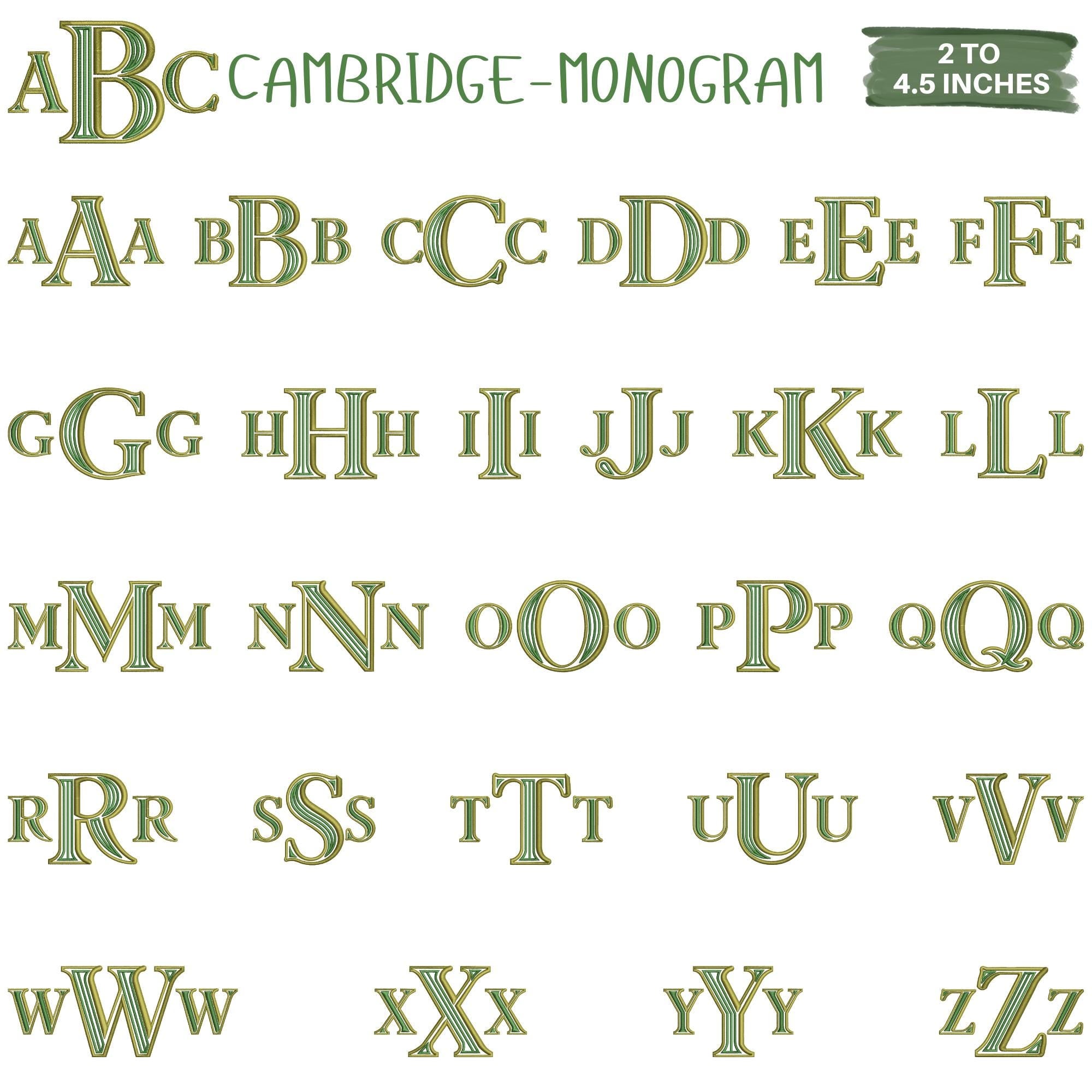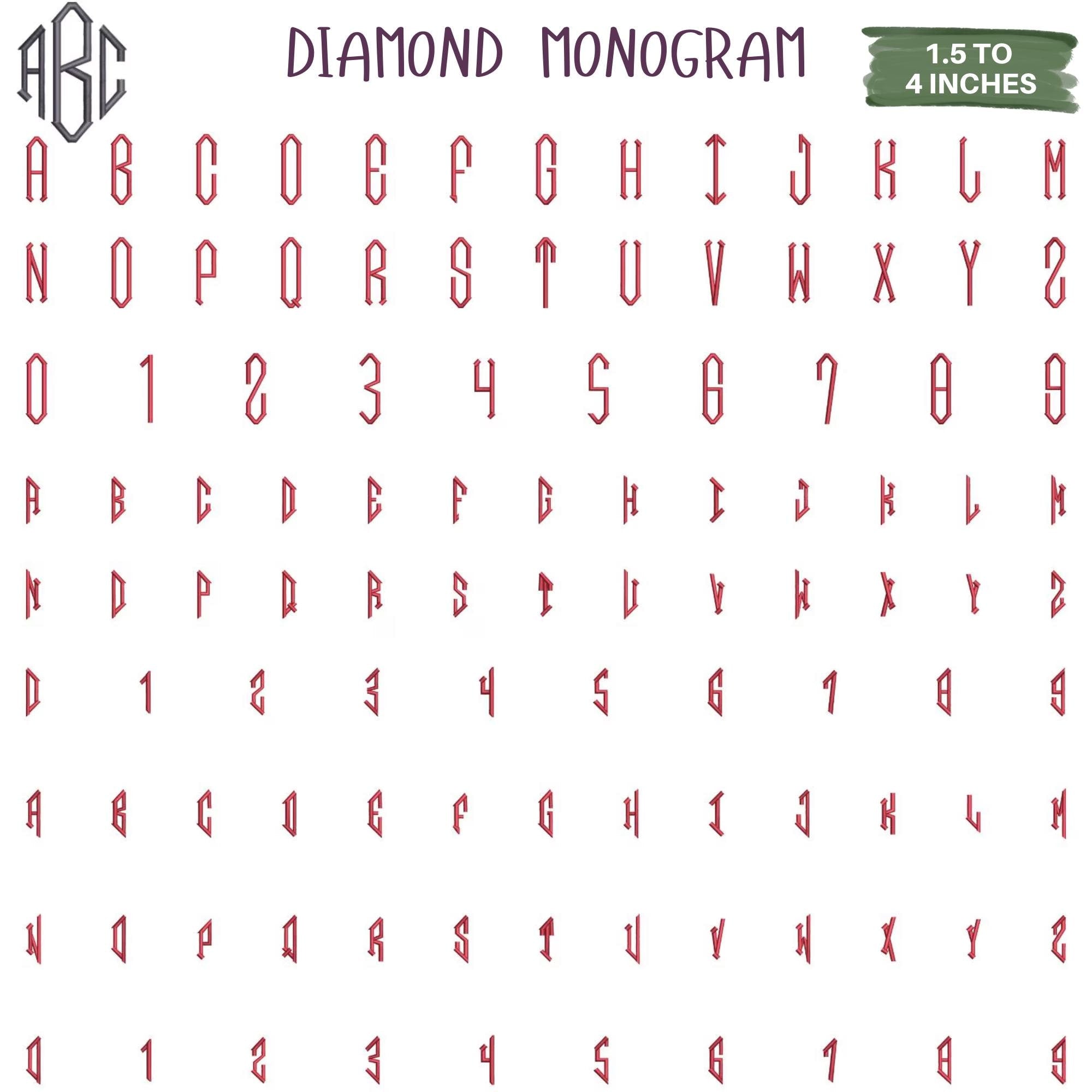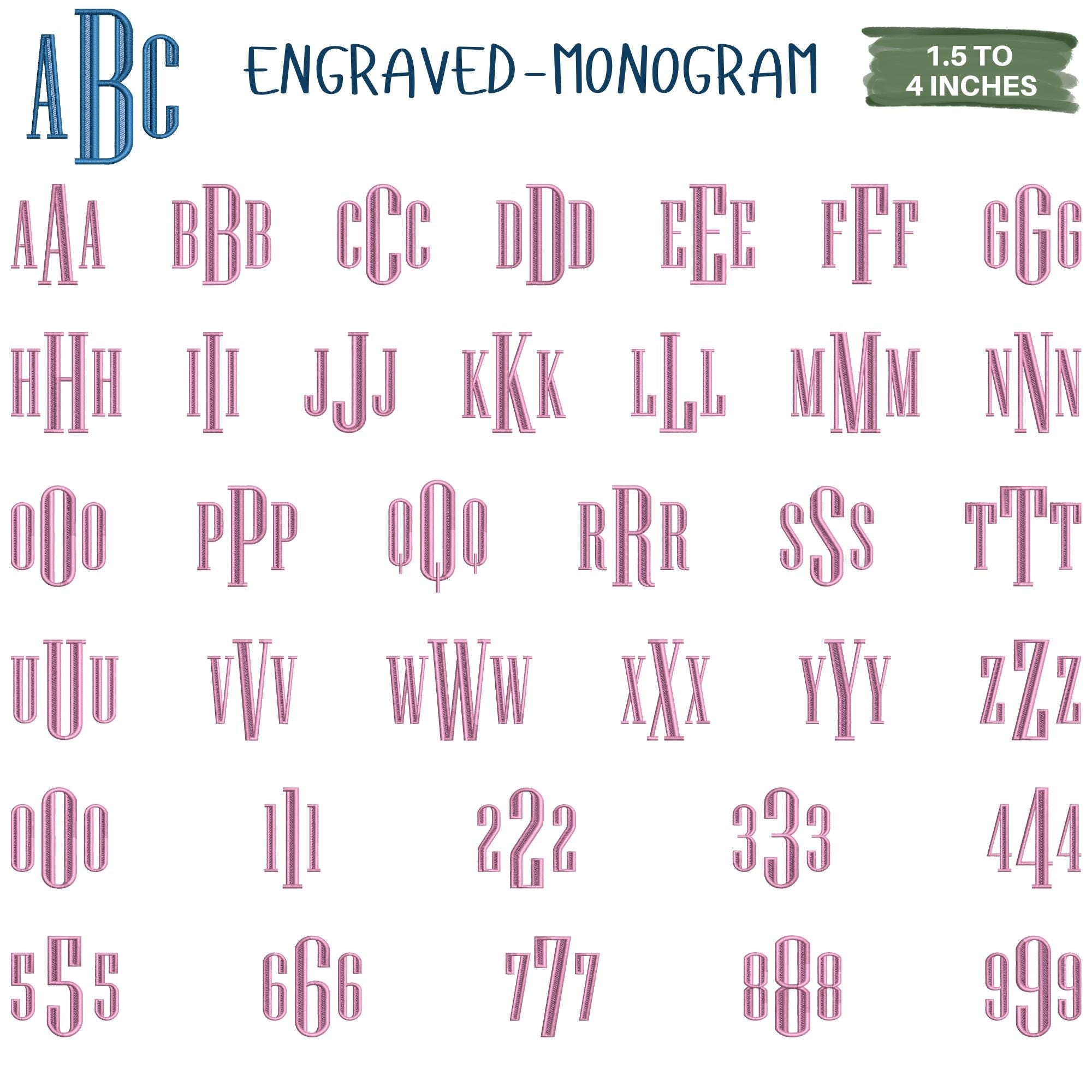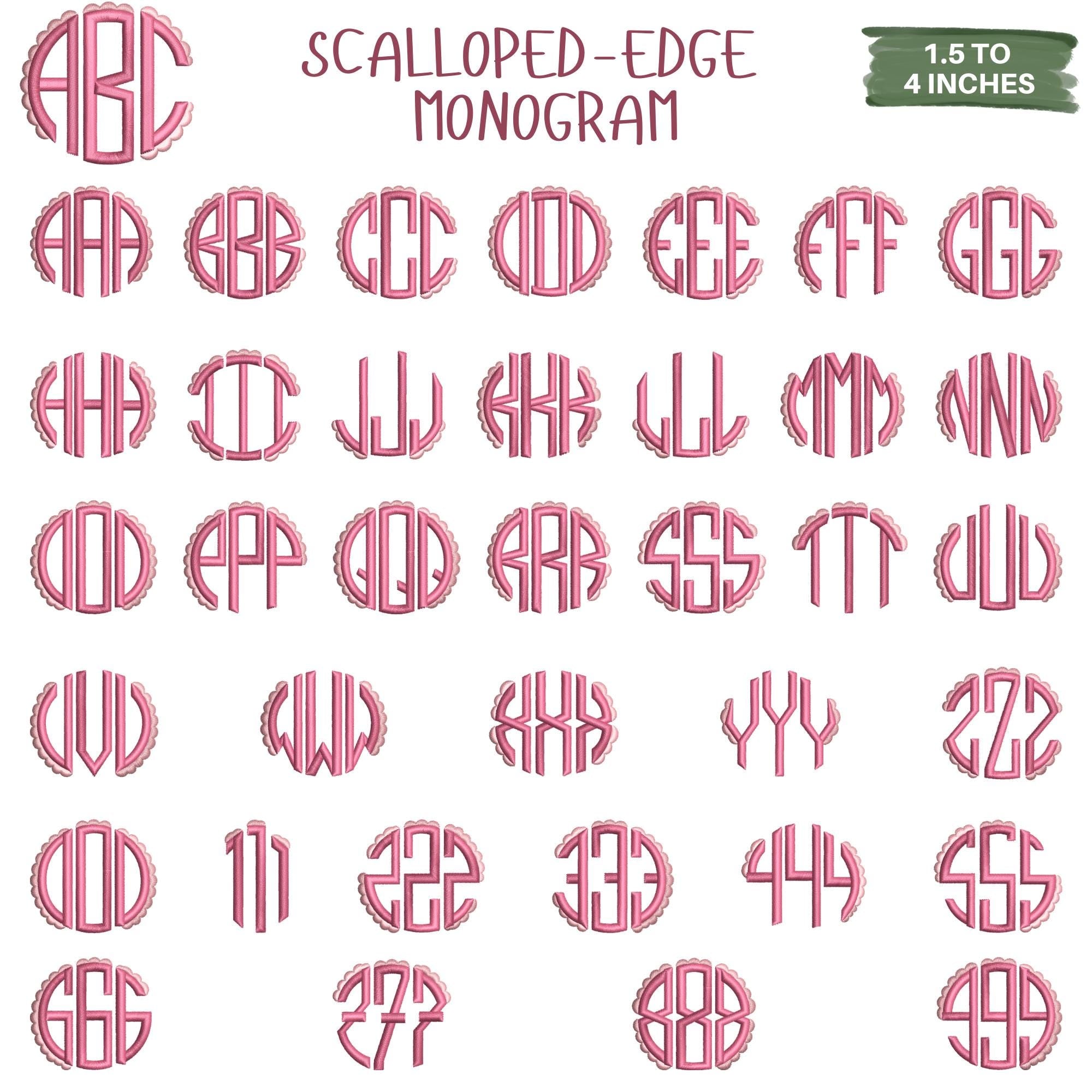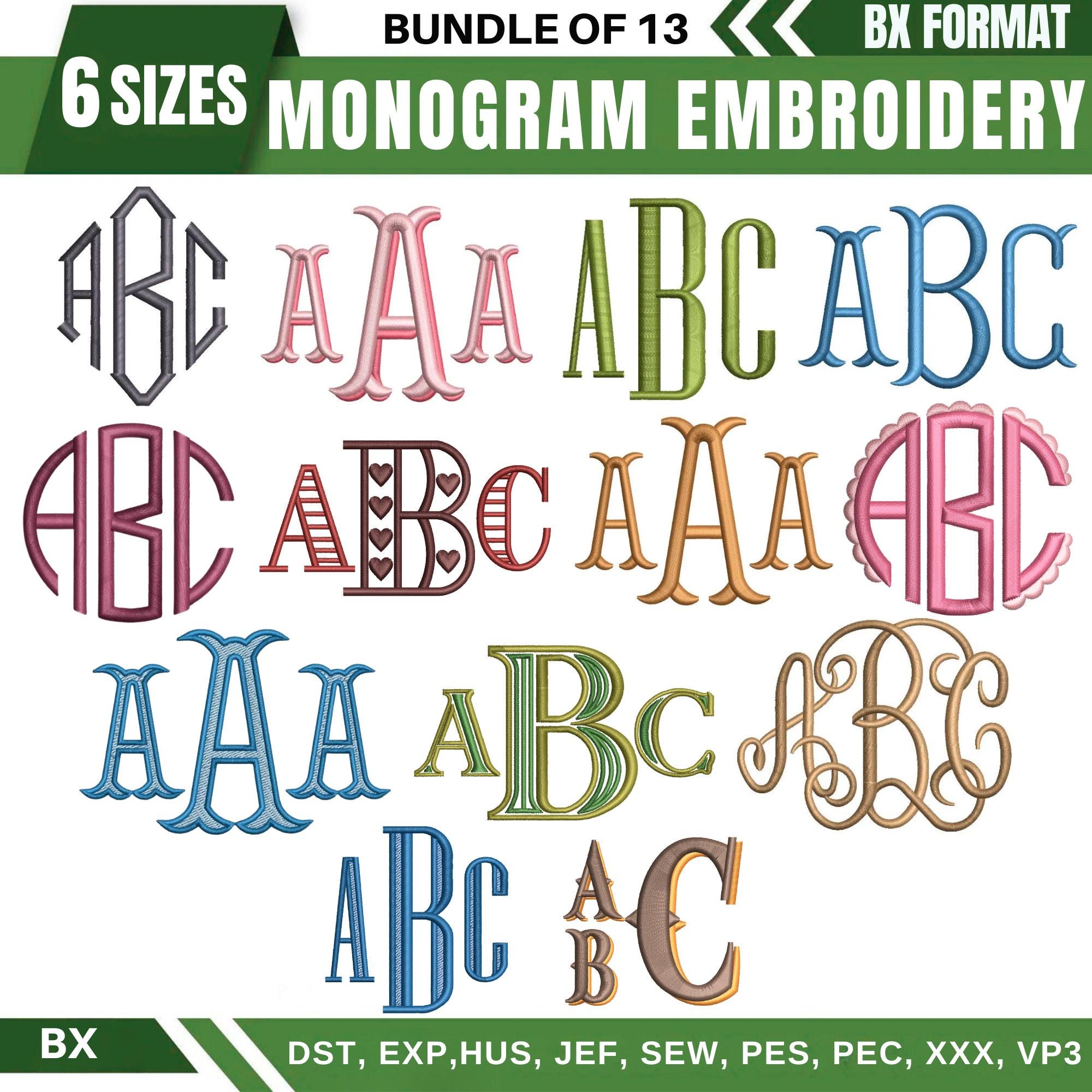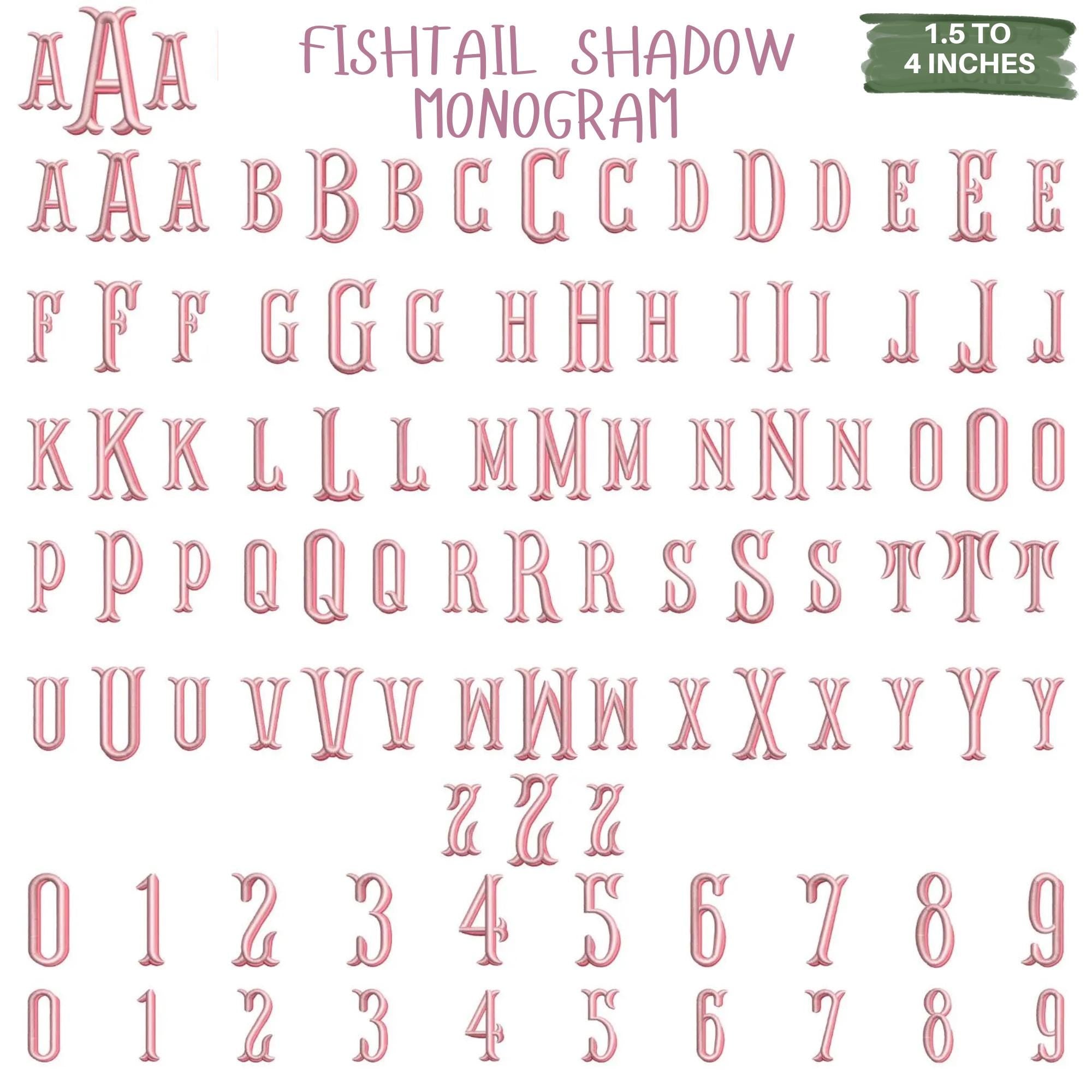
BX Fishtail Monogram Embroidery Font Pack, 6 Sizes Digital
🧵 Digital Monogram Embroidery Font Set (Multiple Ornamental Styles)
Create elegant stitched monograms with this digital embroidery alphabet bundle featuring multiple ornamental font styles designed for machine embroidery. Perfect for towels, robes, shirts, baby gifts, and boutique personalization projects.
⭐ Multiple Ornamental Monogram Styles
Perfect for anyone wanting a polished monogram collection with multiple decorative styles and flexible sizing for embroidery projects! 💖